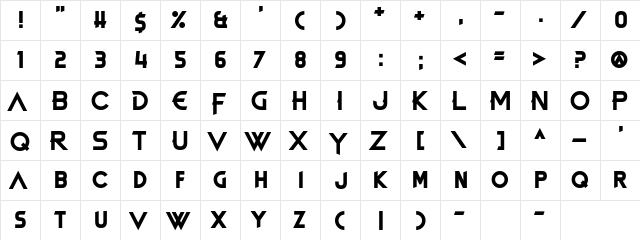
Dead Revolution Regular
| Designer | Allison James |
Design Context for Dead Revolution Typeface
Dead Revolution takes a measured approach to typography — its balanced proportions and neutral character make it a reliable workhorse for both digital and print work.